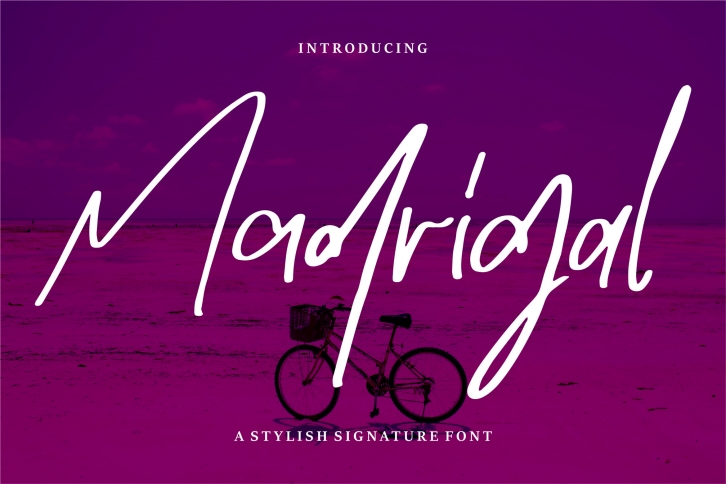
Madrigal is a chic, stylish script font that emanates sophistication and versatility. Its luxurious alternates and ligatures make this font the perfect match for any project.